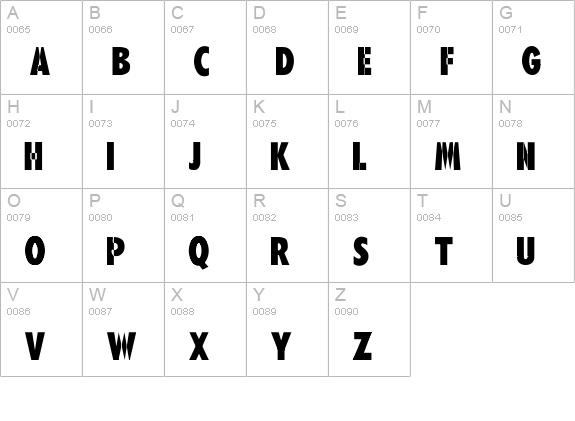
RSFutaruBold is a striking and modern font that exudes confidence and sophistication. With its bold and clean lines, this font is perfect for making a statement in your designs. The geometric shapes and sharp angles give RSFutaruBold a futuristic and edgy look, making it ideal for branding, logos, headlines, and more. What's even better is that RSFutaruBold is available for free download at FontsMarket.com. Yes, you read that right - you can get your hands on this stylish and versatile font without spending a penny. Don't miss out on the opportunity to add RSFutaruBold to your font collection and elevate your design projects to the next level.